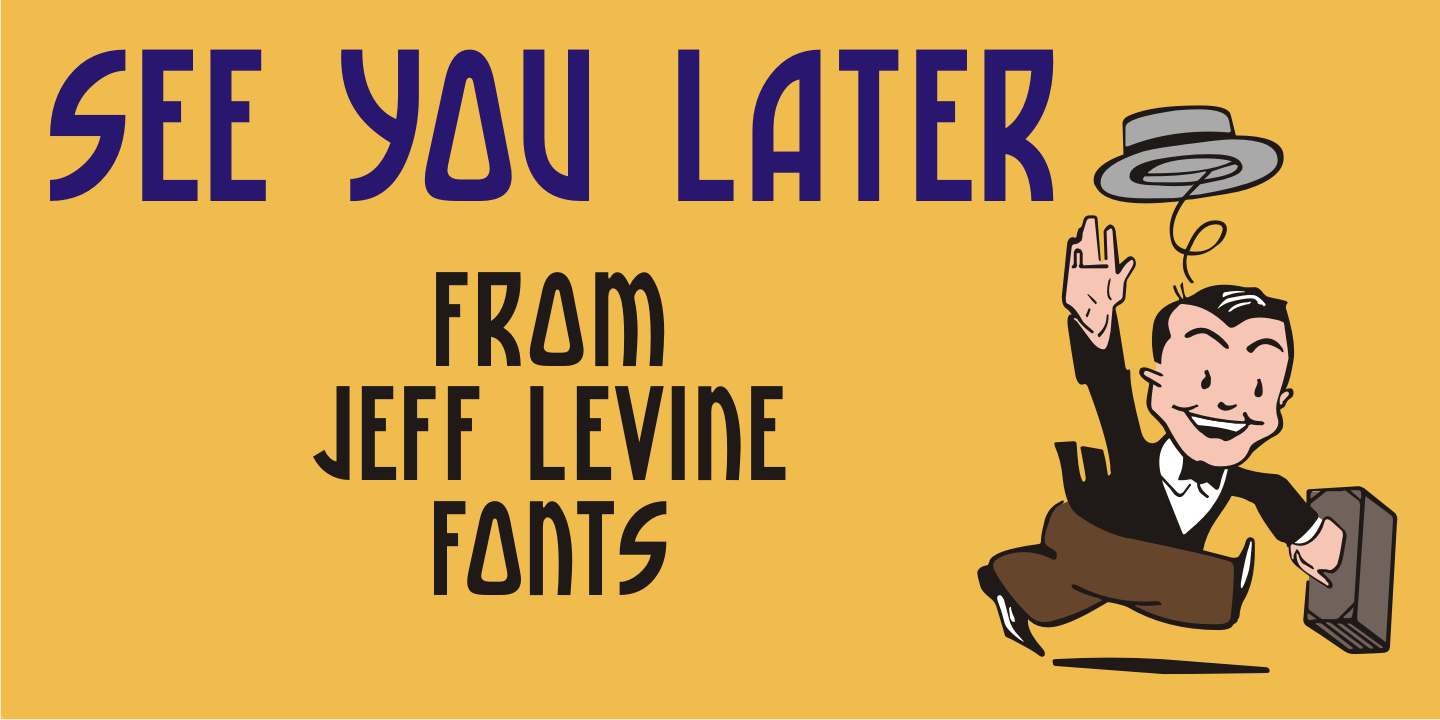
See You Later
The sheet music cover of Lew Brown and Albert Von Tilzer's 1917 wartime song 'Au Revoir, But Not Goodbye (Soldier Boy)' had its title hand-lettered in a condensed sans serif design with the influence of Art Nouveau styling.
This has now been re-drawn digitally as See You Later JNL.